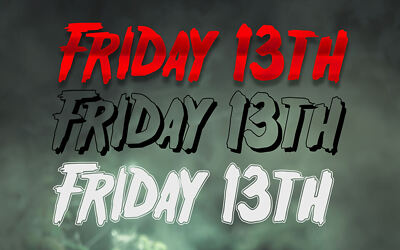
The Friday Terror is a unique and attractive display font. Oddly enough, this font looks really good in a variety of contexts!
This font is suitable for designs with horror and Halloween concepts. Emphasize horror in your designs by using this font!